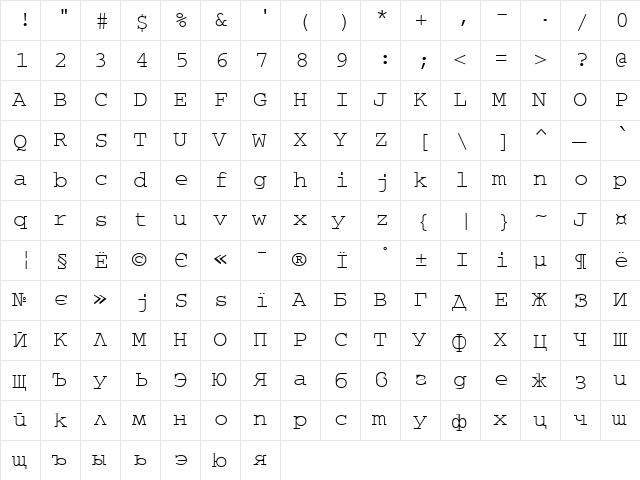
Maritsa Regular
Design Context for Maritsa Typeface
Maritsa offers clean, dependable letterforms without strong stylistic allegiance, making it a practical choice for designers who need flexibility.